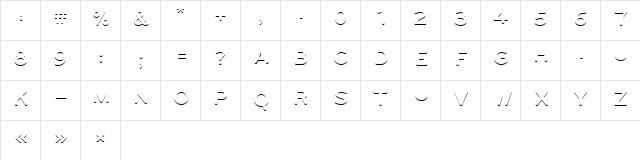
UGO 3D COLOR 3D COLOR Font Preview
UGO 3D COLOR 3D COLOR
UGO 3D COLOR 3D COLOR Font Details
| Foundry | PYRS Fontlab Ltd. / Made with FontLab |
| Designer | Valeria Santarelli |
Design Context for UGO 3D COLOR Typeface
UGO 3D COLOR takes a measured approach to typography — its balanced proportions and neutral character make it a reliable workhorse for both digital and print work.